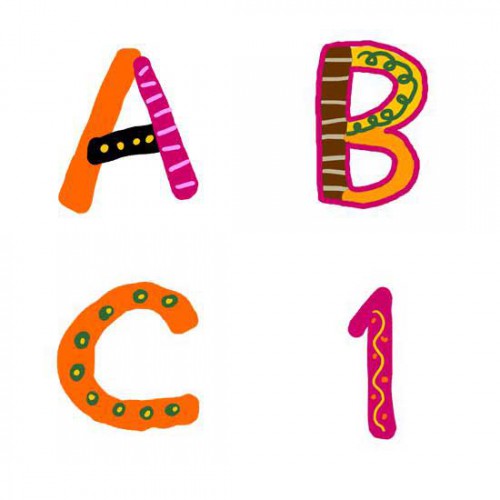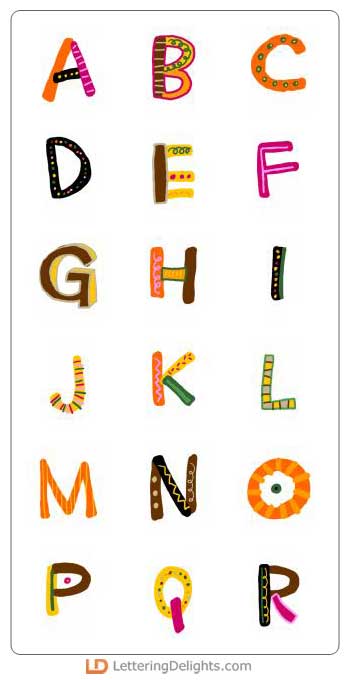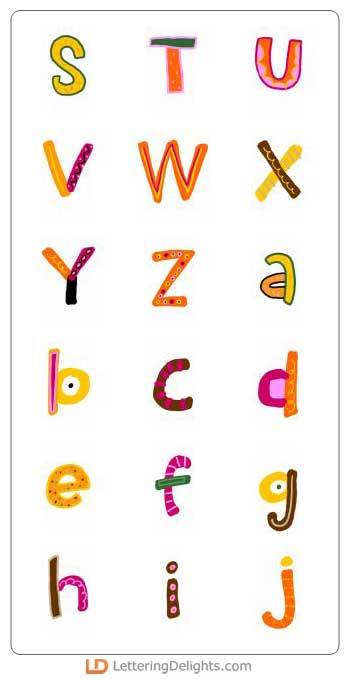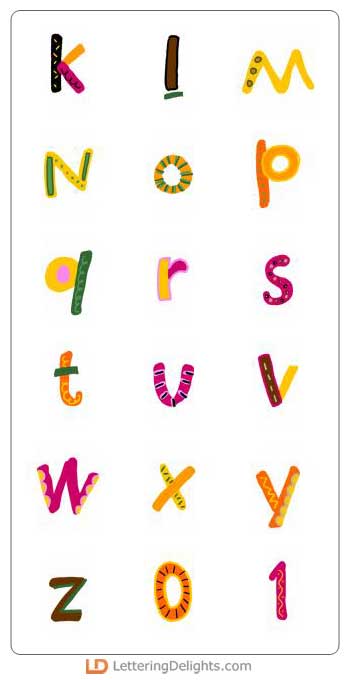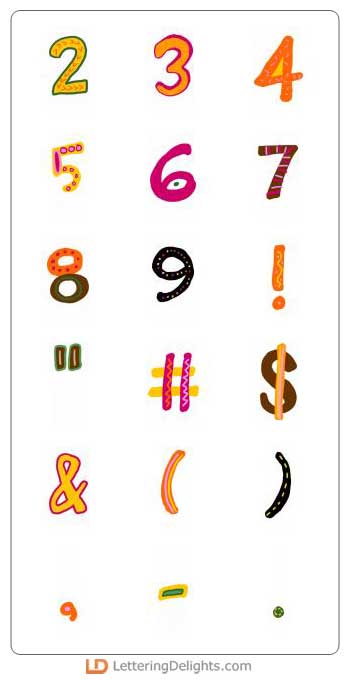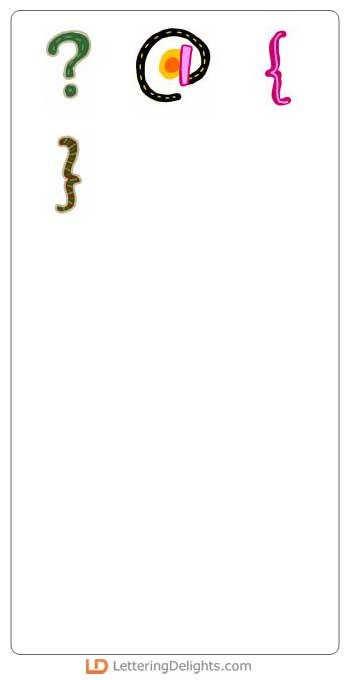
Thanksgiving Art alphabet is a great addition to your digital and traditional scrapbooking library. Just in time for this Thanksgiving Season, use this cute alphabet in your cards, scrapbook pages, or adorning those fun fall memories. For a better value, look for Thanksgiving Art alphabet and matching clip art set in our Thanksgiving Art Bundle.